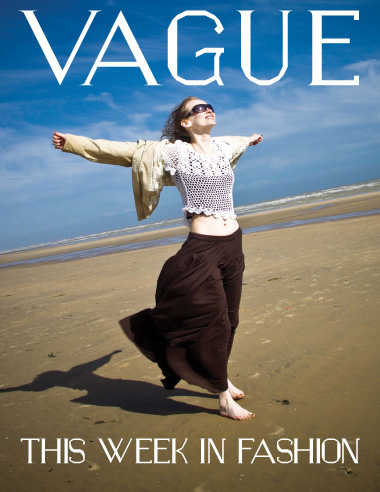
Elegance Serif
Same as Elegance. With some serifs and some further experimentation with problematic characters. In the process of being enhanced with "brickstacking".